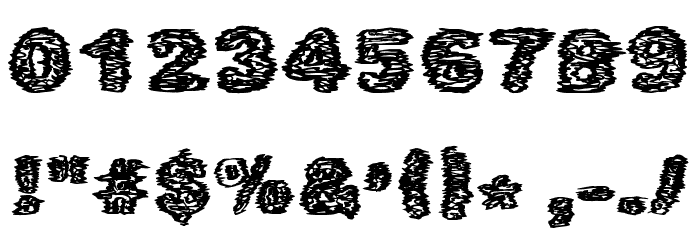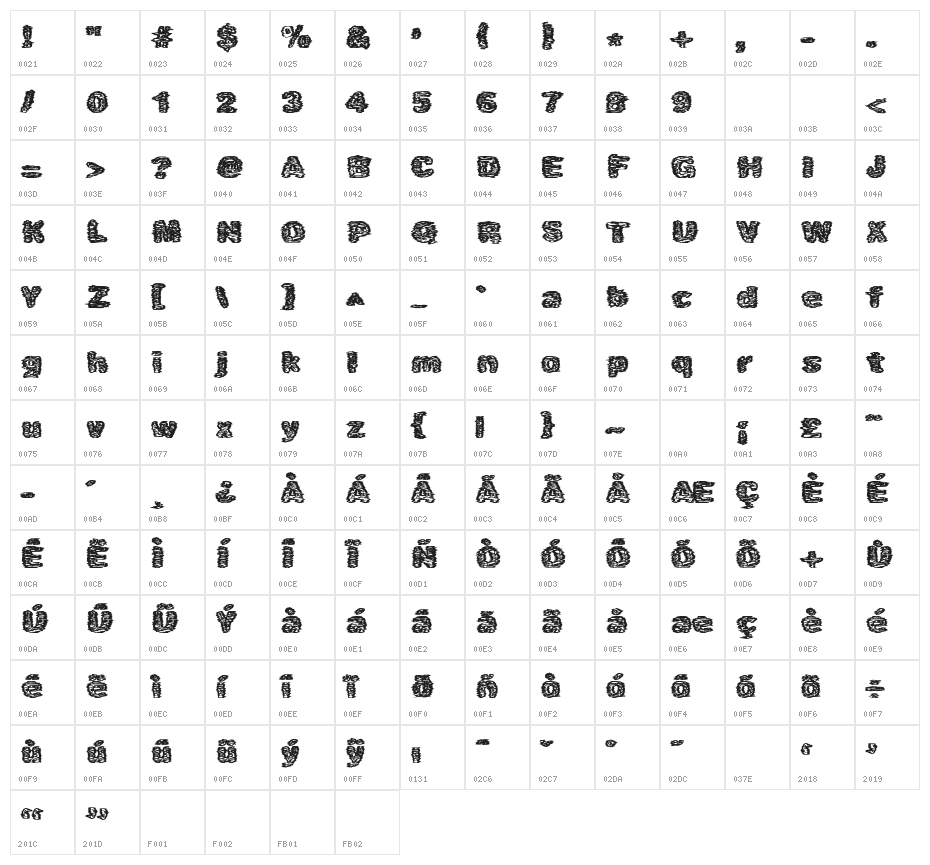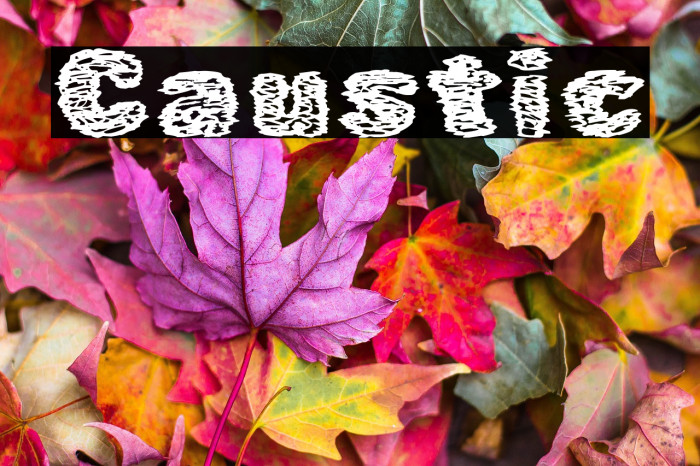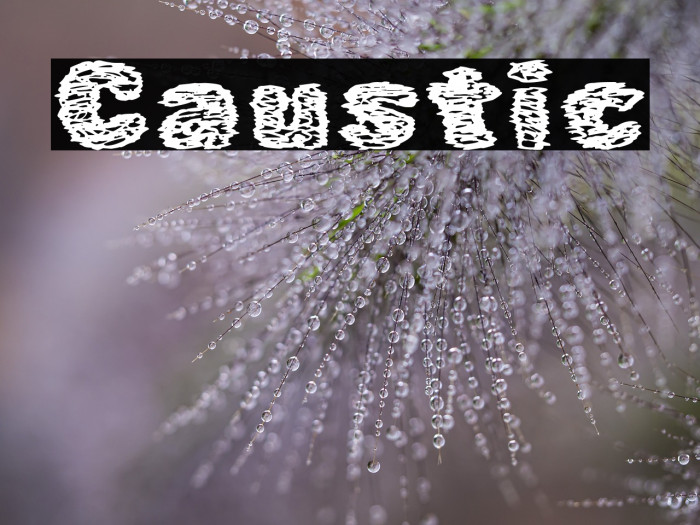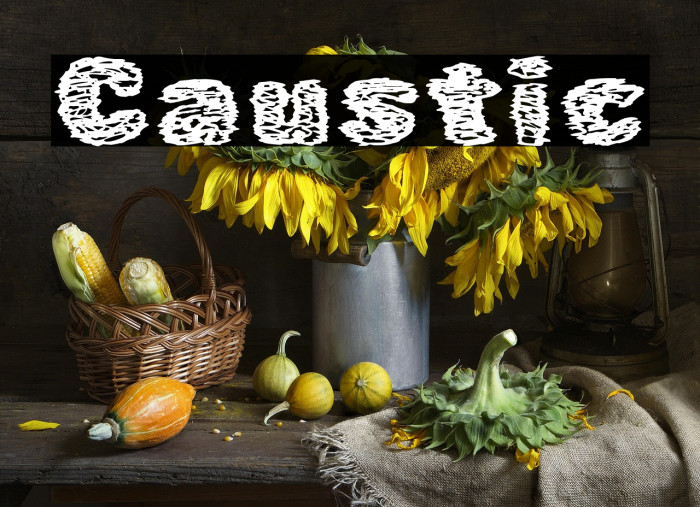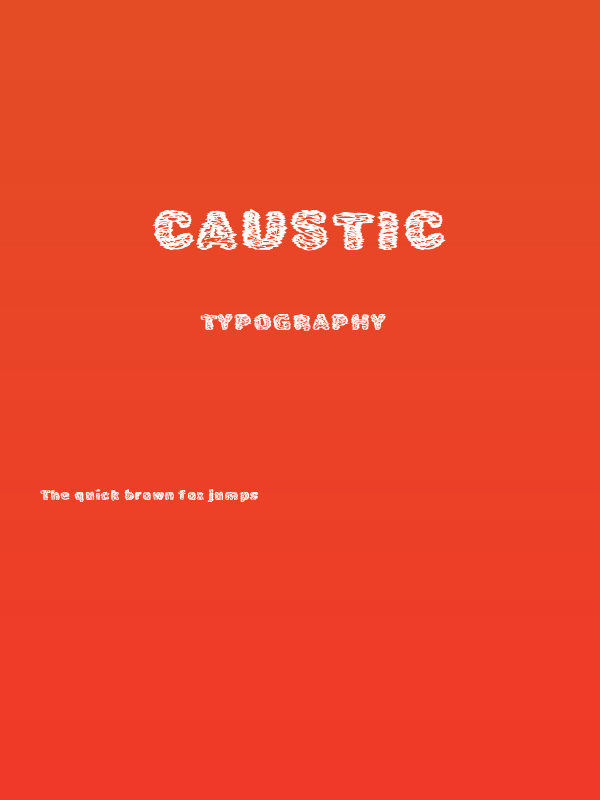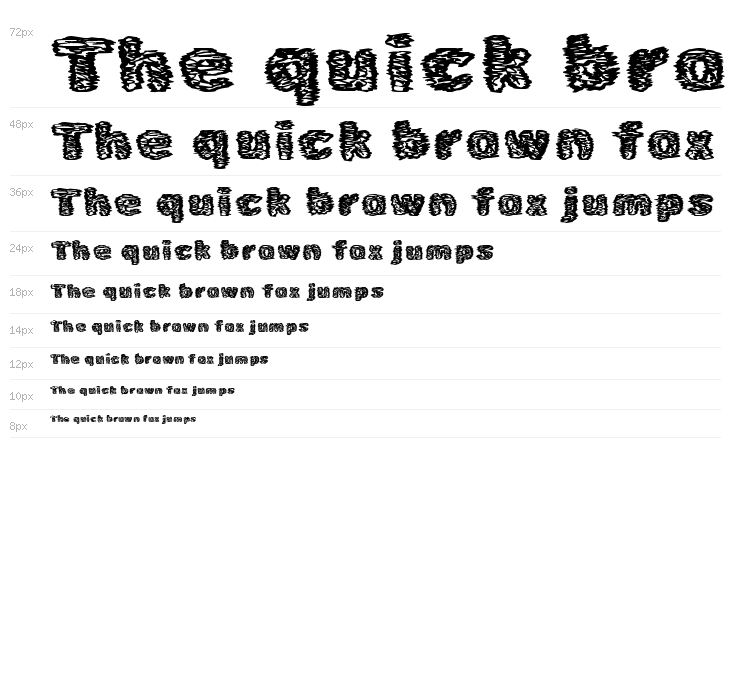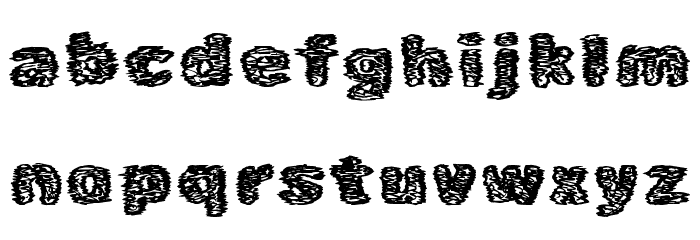
Caustic Font
Caustic Description
This font exhibits a highly textured and chaotic appearance, reminiscent of hand-drawn or scribbled designs. Each character is filled with intricate, overlapping lines that create a sense of movement and energy. The letters maintain a consistent height and width, ensuring readability despite the complex internal detailing. This style is bold and eye-catching, making it suitable for projects that require a strong visual impact. The font's unique texture gives it a raw, organic feel, which can add a dynamic and unconventional touch to any design.
| Proposed Projects | Ideal for posters, album covers, graffiti art, and any design needing a bold, artistic flair. |